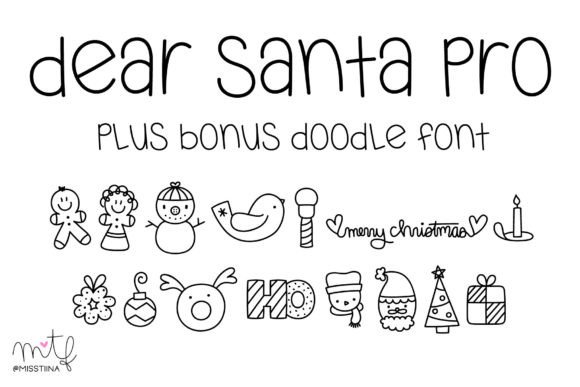
Dear Santa Pro Duo Font
If you’re writing Santa a letter, use this adorable, handwritten childlike font duo (handwritten sans and dingbats)! Dear Santa Pro not only gives you inspiration on how to start the letter, but it also has neat and original characters. This typeface also comes with some cute and newly designed Christmas doodles to complement your writing. Have fun, and create something spectacular this Christmas!